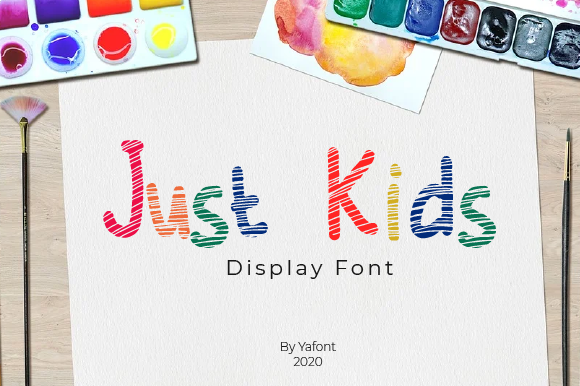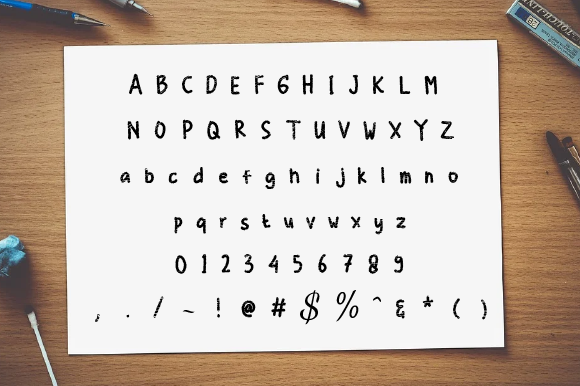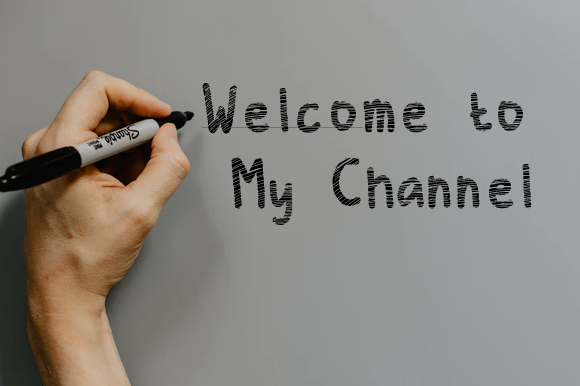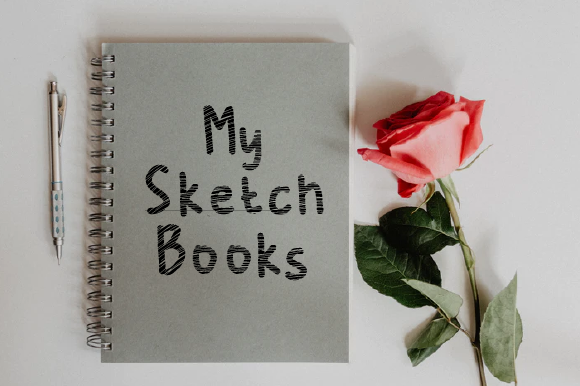
Just Kids Font: A Playful & Cute Display Font for School Projects!
About the Just Kids Font
Step up your design game with Just Kids Font, a font that exudes confidence and style. Just Kids is a cute and colorful display font. It embodies playfulness and authenticity and is the perfect choice for any children activity or school project.
Its playful, rounded forms make it ideal for children’s book illustrations, playful branding for toys or confectionery, and eye-catching posters for kids’ events. However, its low x-height and decorative elements make it unsuitable for body text or UI elements requiring high readability. Avoid using it in long paragraphs or for applications needing sharp, precise detail.
Just Kids pairs well with clean sans-serif fonts like Open Sans or Lato for a balanced contrast, providing readability where Just Kids lacks it. For a more whimsical feel, consider pairing it with a script font like Pacifico, though careful kerning may be needed. Avoid pairing it with overly decorative or heavy fonts which could clash with its lighthearted nature.
The font’s overall personality is cheerful and friendly, exuding a sense of youthful energy and authenticity. It is best suited for projects targeting a young audience and contexts where a playful, approachable aesthetic is desired.